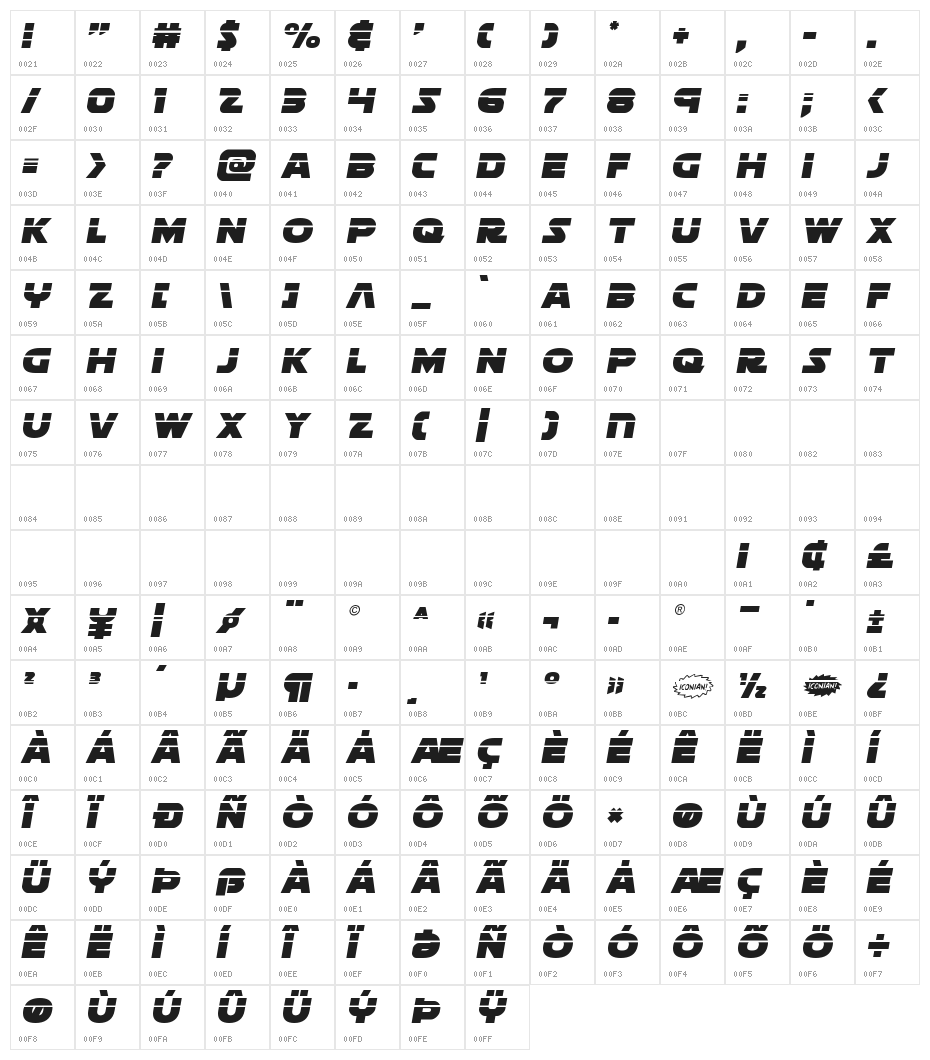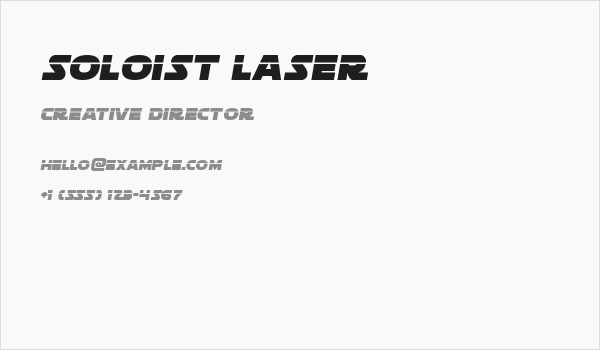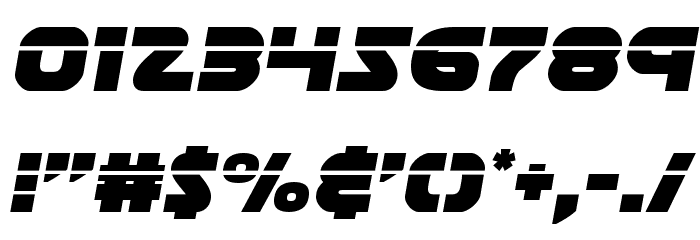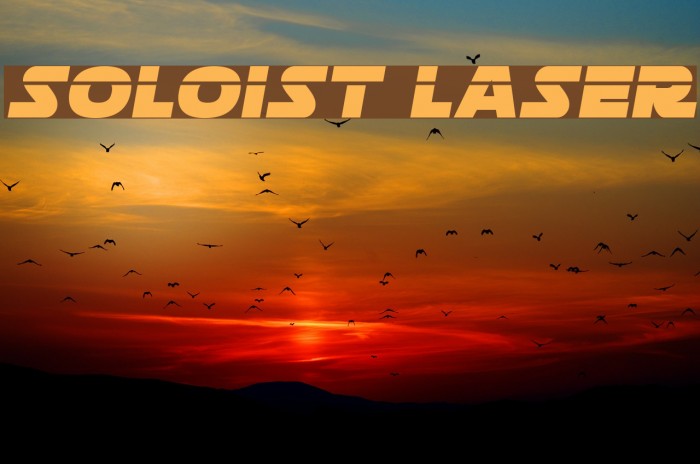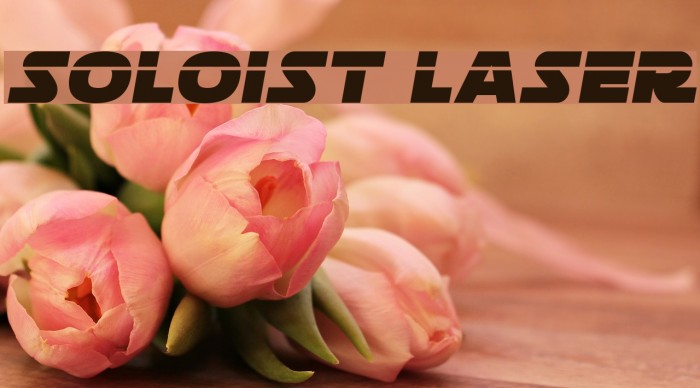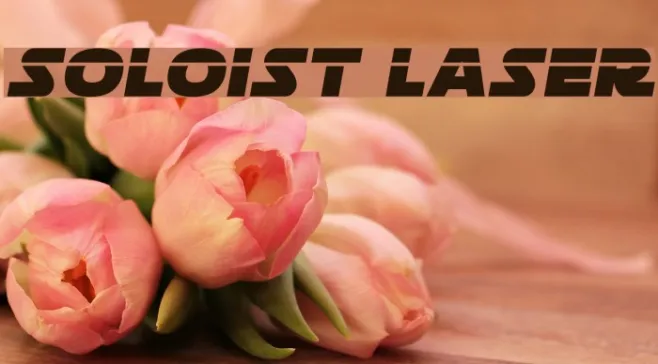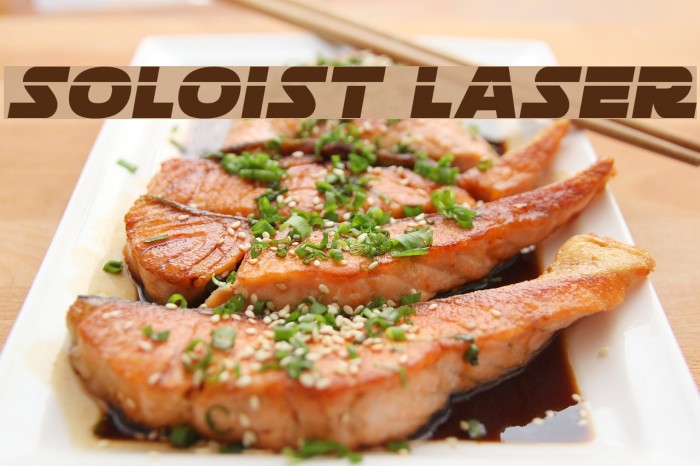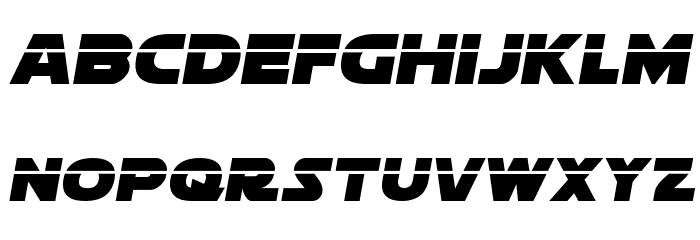
Soloist Laser Font
Soloist Laser Description
This font features a bold and dynamic design with a futuristic flair. The characters are slanted, giving a sense of motion and speed, reminiscent of high-tech or sci-fi themes. The strokes are thick and consistent, providing a strong visual impact. The angular cuts and sharp edges enhance its modern and edgy appearance. This font is ideal for projects that require a bold statement, such as technology branding, sports team logos, or video game titles. The uniformity in stroke thickness ensures readability while maintaining a distinctive style.
| Use Case | Logos, Headlines |
| Proposed Projects | Ideal for technology branding, sports team logos, video game titles, and sci-fi themed designs. |